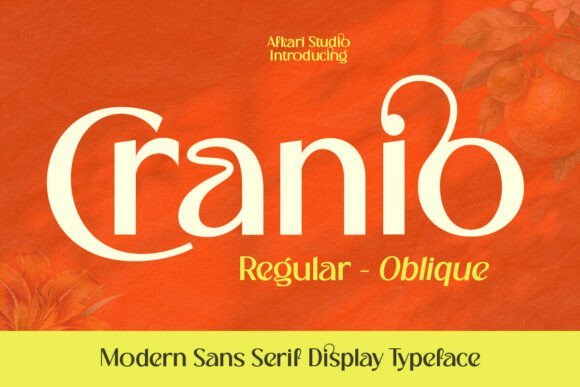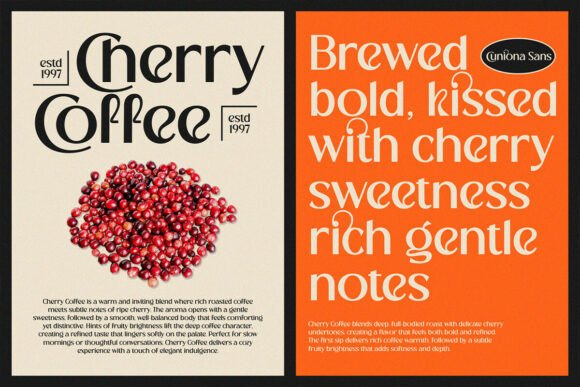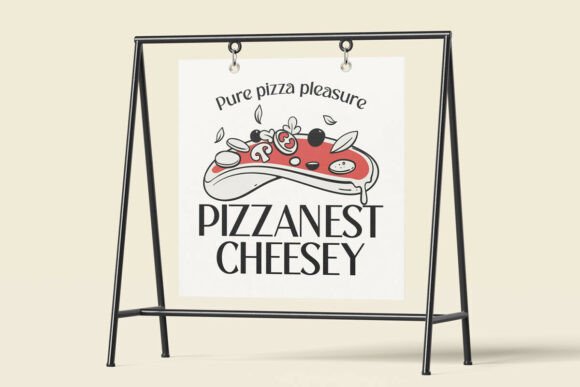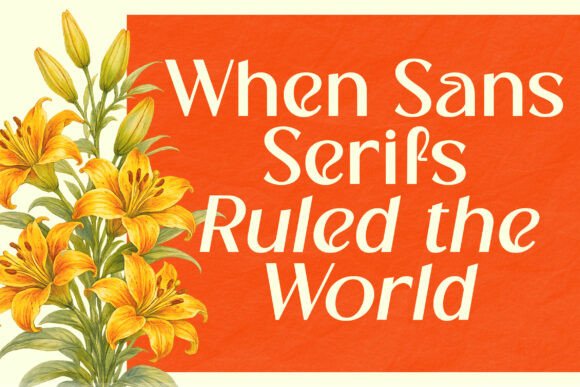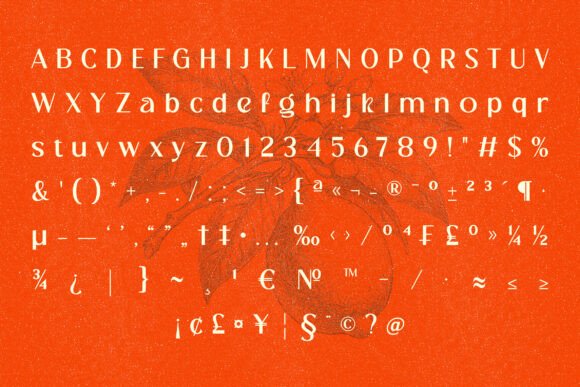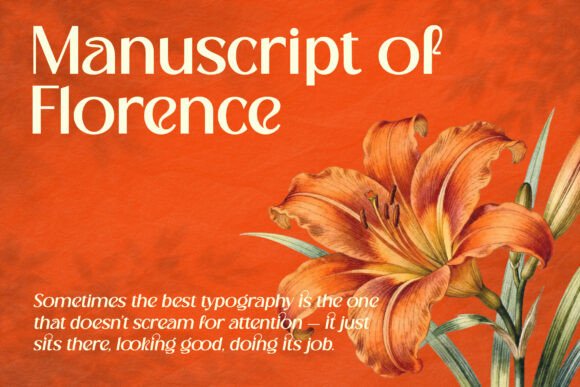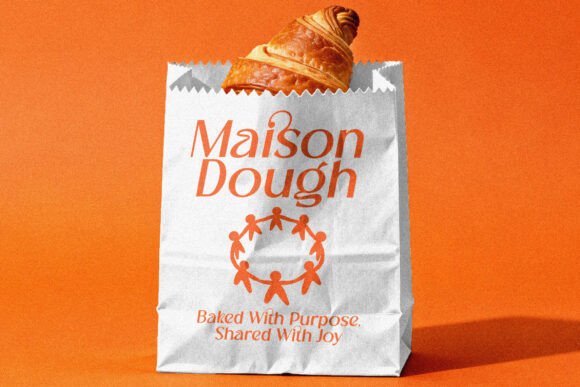
Have you ever stared at a design and thought, ‘This font just doesn’t cut it’? We’ve all been there. The moment of creative frustration when the perfect typography seems elusive. But what if I told you that there’s a font that can elevate your designs and leave a lasting impression? Enter the Cranio Font, a modern sans serif display font designed to deliver clean impact, bold clarity, and contemporary style.
Crafted to stand out at large sizes while maintaining excellent readability and structure, the Cranio Font is a game-changer for designers. Its sleek and professional look fits perfectly into today’s branding and digital design trends, making it an ideal choice for logo design, tech branding, and more. Whether you’re a seasoned pro or just starting out, the Cranio Font is a valuable addition to your design toolkit.
Cranio Font Key Features
- Unique Characteristics: This font features a unique, hand-drawn style with a mix of organic and geometric elements, creating a distinctive visual identity.
Cranio Font Review
Cranio Font is a sans-serif font that seems to be inspired by the world of architecture and construction. At first glance, I thought it was going to be just another run-of-the-mill sans-serif font, but it actually has some interesting qualities that set it apart.
- ✨ The font’s geometric shapes and clean lines make it perfect for modern and minimalist designs.
- ✨ It has a wide range of weights and styles, from thin to bold, which makes it versatile for different design needs.
- ✨ The font’s x-height is well-balanced, making it easy to read, even at smaller sizes.
- ⚠️ The font’s style may be too modern or edgy for some design projects, which could limit its appeal.
Overall, I think Cranio Font is a solid choice for designers who are looking for a modern and versatile sans-serif font. While it may have some limitations, its unique style and wide range of weights make it a great addition to any design toolkit.
Tips for Getting the Most Out of Cranio Font
Use Cranio Font for creative projects that require a unique and eye-catching font.
Combine Cranio Font with other fonts to create a visually appealing typography.
Experiment with different font sizes, colors, and settings to achieve the desired effect.
Cranio Font is ideal for:
Graphic design projects.
Marketing materials, such as brochures and flyers.
Wedding invitations and other event materials.
Alternatives to Cranio Font
Playfair Display is an elegant, high-end font ideal for luxury brands, weddings, or any project that requires sophistication and refinement. It has a more ornate feel compared to Cranio Font, making it suitable for projects that require a touch of luxury.
Comparison: Playfair Display has a more classic, sophisticated feel compared to Cranio Font’s modern and geometric design.
Montserrat is a modern sans-serif font designed for urban environments. It’s ideal for projects that require a clean, minimalist look and is often used for tech, fashion, or travel-related brands. Montserrat is more versatile and easier to read than Cranio Font.
Comparison: Montserrat has a more straightforward design compared to Cranio Font’s unique geometric shapes and letterforms.
Great Vibes is a modern script font that’s perfect for creative and artistic projects. It’s ideal for brands that want to convey a sense of playfulness, friendliness, and approachability. Great Vibes is more cursive and fluid compared to Cranio Font’s geometric design.
The recommended font size for Cranio is between 10px and 24px, depending on the context and intended use. For optimal readability, we recommend a line height of at least 1.2 times the font size. This will ensure clear and easy-to-read text, even at smaller font sizes.